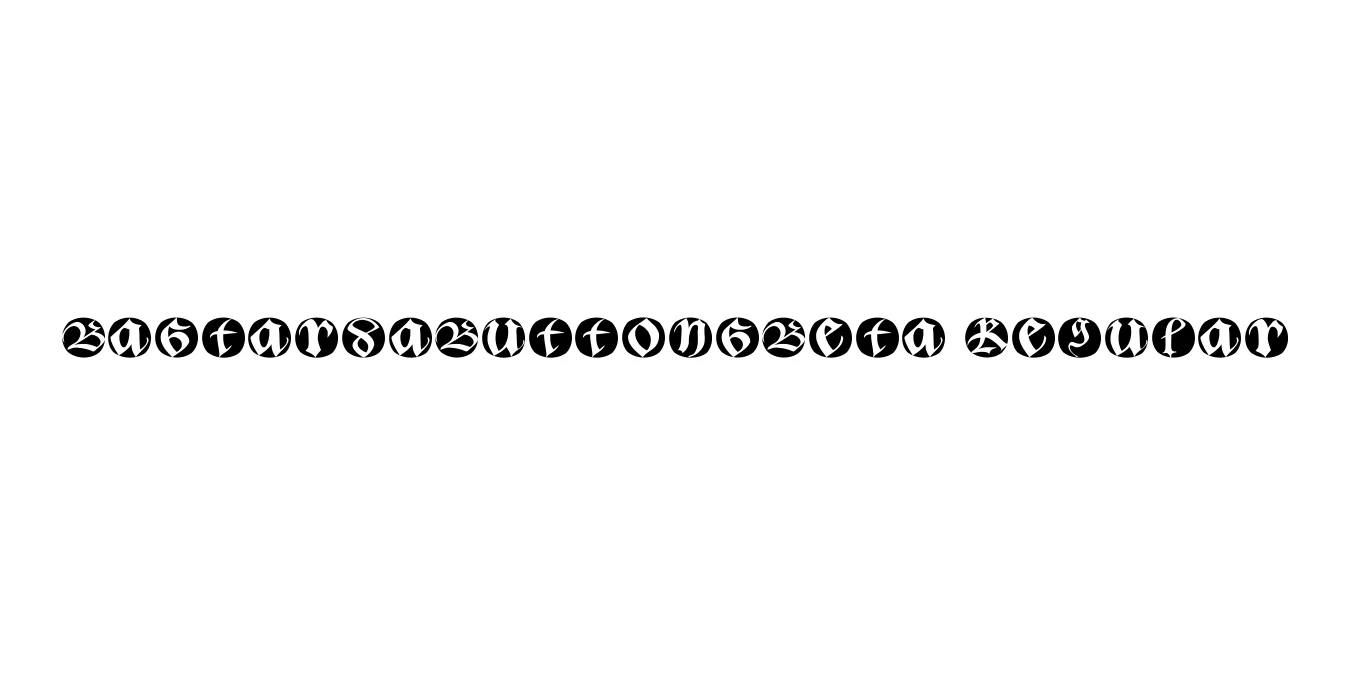
BastardaButtonsBeta Regular
Designed by Tepid Monkey
| Category | Blackletter / Decorative |
| Designer | Tepid Monkey |
BastardaButtonsBeta Regular is an experimental typographic project that bridges the gap between the medieval 'Bastarda' script—a cursive form of blackletter used throughout the 14th and 15th centuries—and modern geometric modularity. Originally conceived as a digital interpretation of scribal hands, the 'Beta' iteration explores the intersection of traditional calligraphy and contemporary digital button-style frameworks. It serves as a study in how historical letterforms can be adapted into rigid, circular structures without losing their essential gothic character, representing a departure from traditional fluid quill strokes in favor of structured digital modules.
From a technical standpoint, the font exhibits a unique visual weight characterized by high-contrast strokes encapsulated within rounded terminals. The letterforms maintain a surprisingly consistent x-height, which provides a sense of horizontal rhythm despite the complexity of the ornate glyphs. Legibility is intentionally compromised in favor of texture and display impact; the verticality of the strokes echoes the 'Textura' style, while the 'Buttons' motif creates a repetitive, pattern-like quality. This typeface is best suited for large-scale display work where its intricate geometry and heavy internal spacing can be fully appreciated without the constraints of small-size body text legibility.
BastardaButtonsBeta Regular Best Uses
Ideal for gothic or alternative music labels and high-fashion streetwear brands.
Works exceptionally well for avant-garde art exhibition posters and event flyers.
Adds a distinct, textural personality to high-impact landing pages and digital editorials.